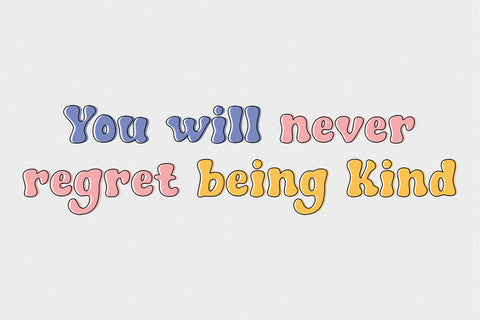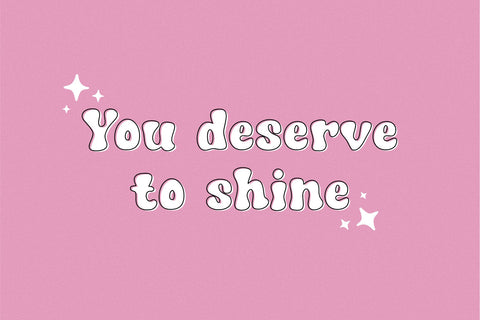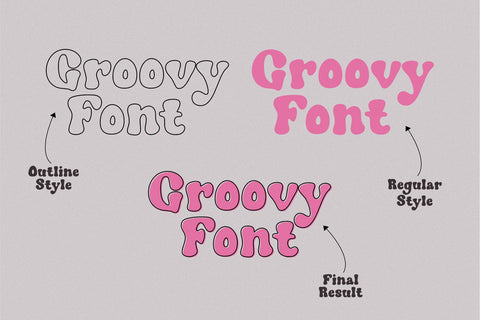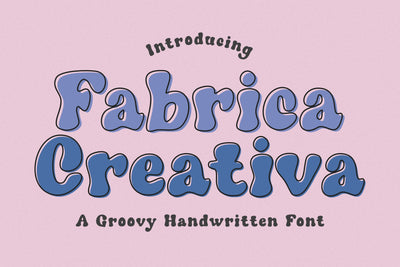
Fabrica Creativa Groovy Font
Fabrica Creativa is fun and retro-styled display font. The font includes two styles of typeface solid and outline!
This font is perfect for your craft projects, branding, logos, social media quotes, stickers, posters, vintage designs, wall art, stickers, shirts, quotes, and children-themed designs, especially when combined with bright colors.